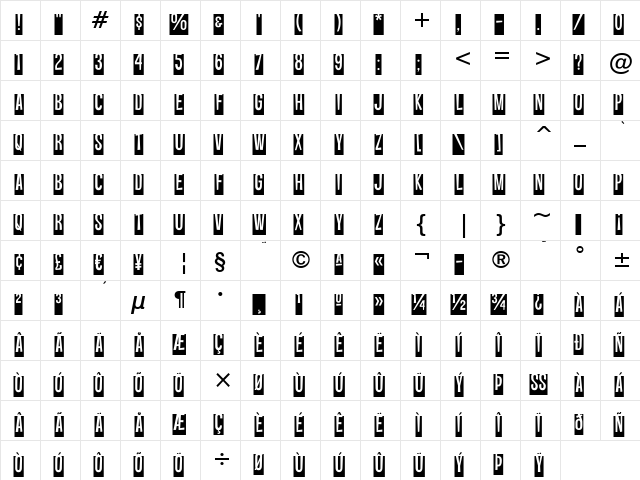
Vanishing Boy BTN Reversed Lift Regular
Design Context for Vanishing Boy BTN Reversed Lift Typeface
Vanishing Boy BTN Reversed Lift is a composed and adaptable typeface that performs quietly and consistently across a wide range of design contexts.
Pro Tip: Use Vanishing Boy BTN Reversed Lift in both headline and body roles to test its range before committing to a single application.